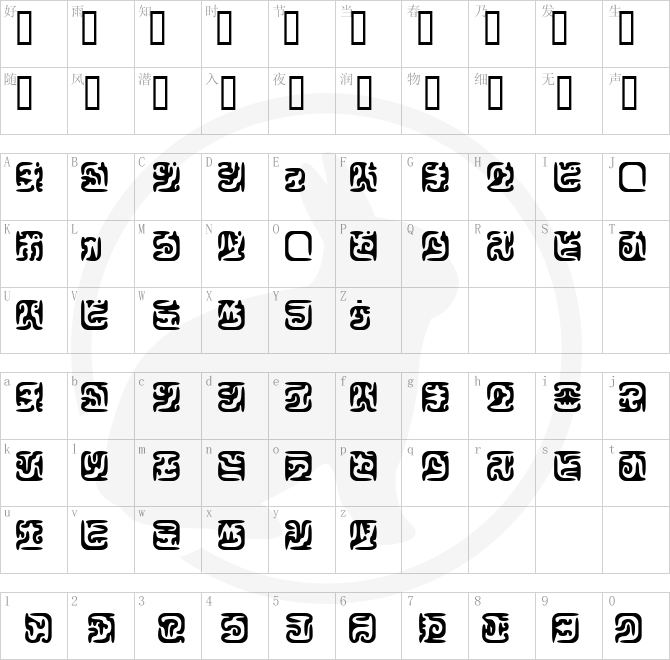
- Font Name:Z_tUBBA
Z_tUBBA-ZOUMOtSU.ttf is a very beautiful artistic font, Z_tUBBA-ZOUMOtSU.ttf is widely used in the design and printing of various books and pictures,Z_tUBBA-ZOUMOtSU.ttf has a strong visual impact,Z_tUBBA-ZOUMOtSU.ttf is a commonly used font in newspapers, magazines and books, and is used in posters, e-commerce Poster design, store design, logo design, font design and other fields.Z_tUBBA-ZOUMOtSU.